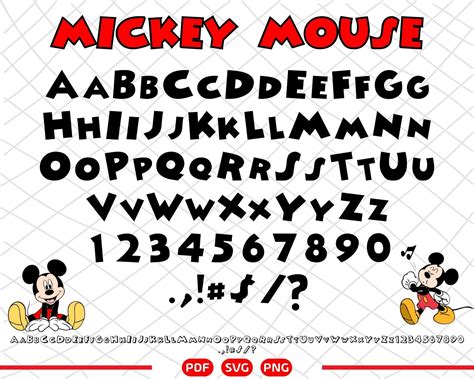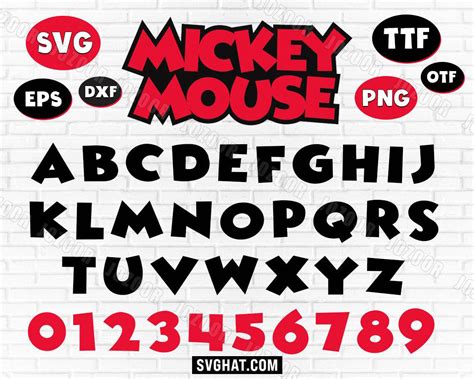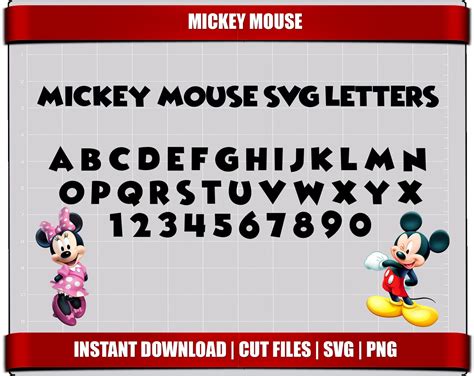
MICKEY MOUSE FONT
The world of typography is vast and diverse, with countless fonts to choose from. Among this myriad of typefaces, one particular font has captured the hearts and imaginations of generations, becoming an iconic symbol of popular culture. This font is known as Mickey Mouse font, a playful and whimsical design that has become synonymous with the beloved character and the Disney empire. In this introduction, we will explore the history, characteristics, and enduring appeal of this unique font, shedding light on its impact on the world of design and popular culture.
The font in question is a stylized, cartoonish version of the classic serif font, with a distinct, rounded appearance. It was created specifically for the iconic mouse himself, Mickey Mouse, and has since become an integral part of Disney's branding and marketing strategy. The font's design is a testament to the early days of animation, reflecting the art style and techniques of the 1920s and 1930s, when Mickey Mouse first came to life on the big screen.
One of the key benefits of this font is its versatility. Its playful and cheerful nature makes it ideal for a wide range of applications, from children's books and educational materials to promotional items and merchandise. The font's distinctive style has also been adapted for use in various media, including films, television shows, and video games, ensuring its presence in the entertainment industry.
In the following sections, we will delve deeper into the history and development of this font, exploring its creation, evolution, and impact on the world of typography and design. We will also examine its role in Disney's branding and marketing strategy, as well as its influence on popular culture and the entertainment industry as a whole.